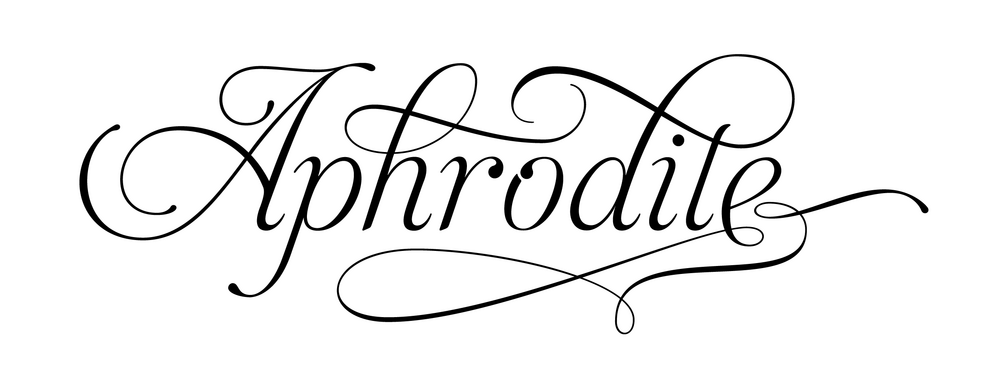
Aphrodite
Aphrodite Pro and Aphrodite Slim Pro are a pair of attractive hybrid typefaces that combines elements from copperplate and cancelleresca. The Slim version is not just a lighter weight, it is also a more mature design, which has many more special characters, including pre-designed words and syllables in English, French, Spanish and German. Both scripts offer a wealth of multi-letter combinations, swirls and swashes, with great possibilities to create calligraphic headlines.
These fonts were designed with Maximiliano Sproviero.